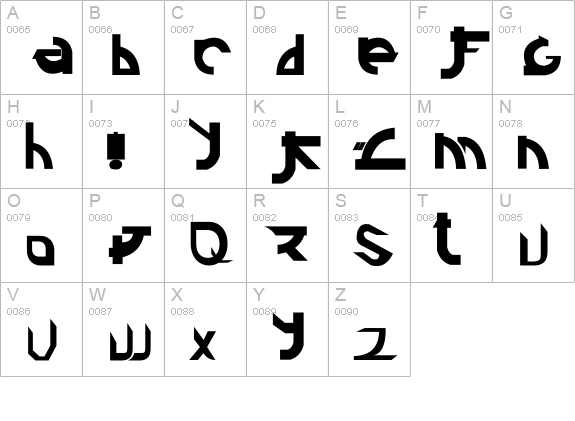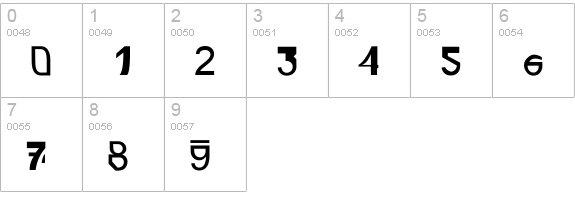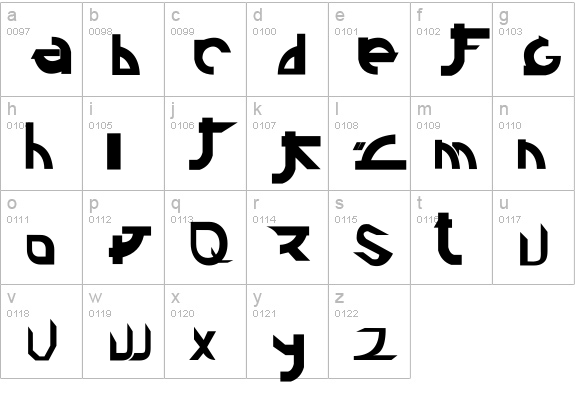
Linkin Park Font Details
Linkin Park font is a bold and edgy typeface that exudes a sense of modernity and energy. With its sharp lines and unique styling, this font is perfect for making a statement in your designs. Whether you're working on a poster, logo, or social media graphic, Linkin Park font will add a touch of excitement and attitude. The best part? Linkin Park font is completely free to download at FontsMarket.com. Take advantage of this opportunity to enhance your projects with this dynamic and eye-catching font. Let Linkin Park font be the perfect choice to bring your creative vision to life.